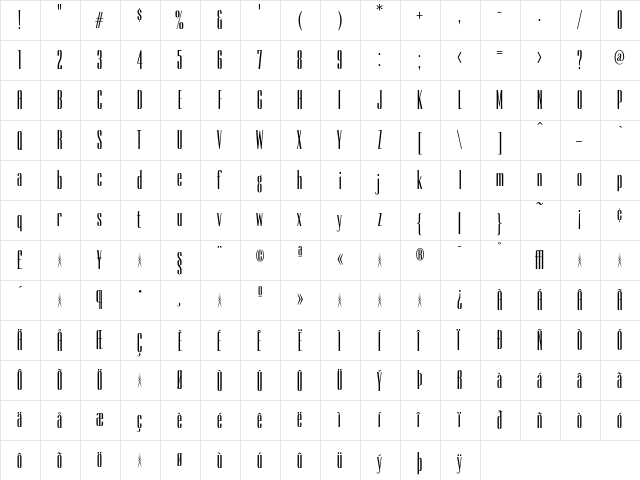
Empire Bold Font Preview
Empire Bold
Design Context for Empire Typeface
Empire is a composed and adaptable typeface that performs quietly and consistently across a wide range of design contexts. The heavy weight commands attention and anchors typographic hierarchies.